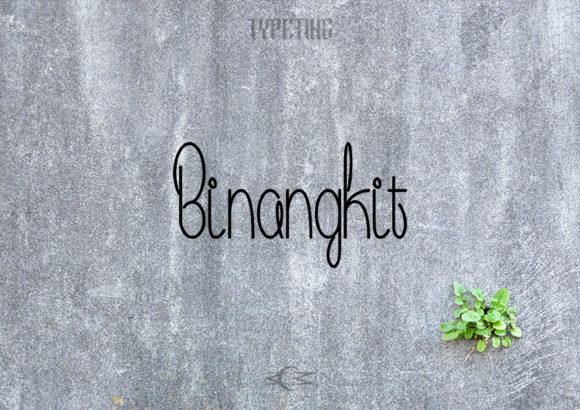
Embrace the whimsical allure of Binangkit, a delightful handwritten font that captivates with its simple charm. Inspired by the joys of life, this script font radiates a sense of playfulness and warmth, inviting you to express your creativity with an unforgettable touch.
Imagine your words dancing across the page, infused with the carefree spirit of Binangkit. This font is a symphony of handwritten delight, where each letter is crafted with care, exuding a sense of genuine connection. Its cheerful curves and playful strokes add a touch of whimsy to any design, making it ideal for projects that seek to spark joy and captivate audiences.
With Binangkit, you'll discover a font that speaks to your heart. Its friendly demeanor and approachable style make it perfect for crafting personalized invitations, heartfelt letters, enchanting logos, eye-catching social media posts, and captivating branding materials. The possibilities are boundless, inviting you to let your imagination soar and create designs that resonate with your unique style.
Immerse yourself in the world of Binangkit and revel in its ability to transform ordinary words into extraordinary expressions. This font is a true treasure, a testament to the power of handwritten artistry. Its enchanting aura will add a touch of magic to any project, captivating hearts and leaving a lasting impression.